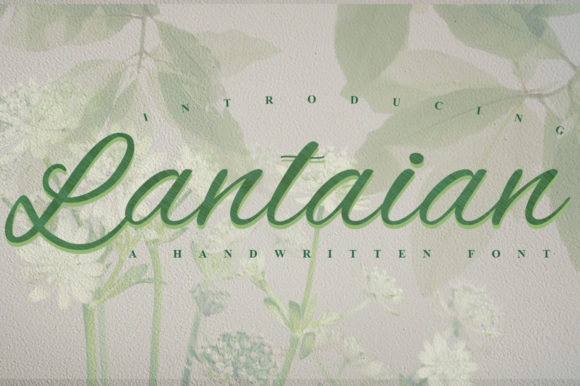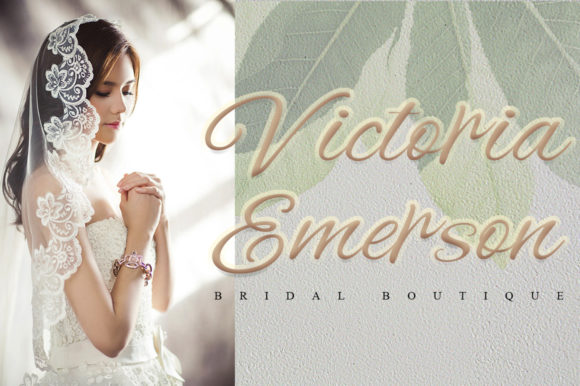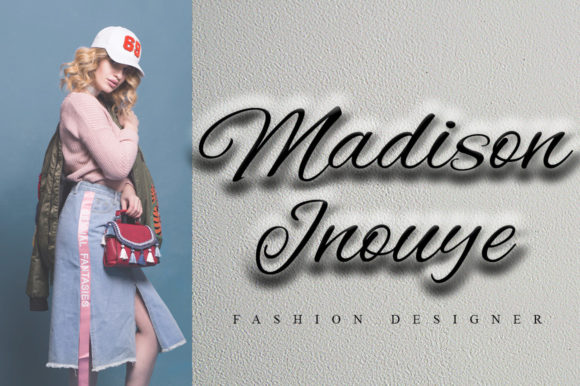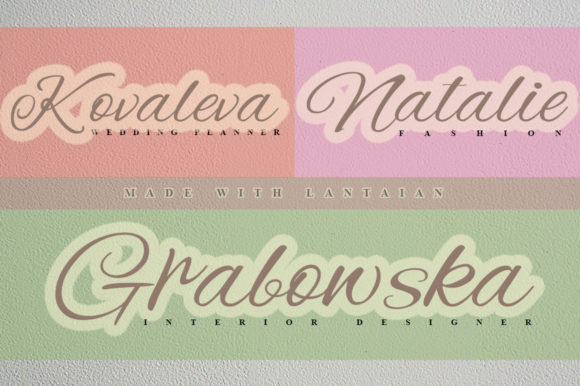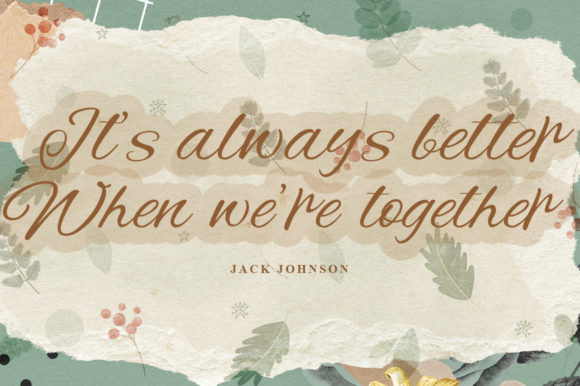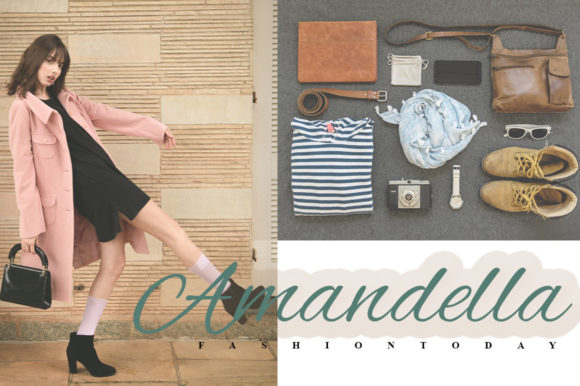
Lantaian Font
About Lantaian Font
Lantaian is a well-balanced script font. It looks amazing on wedding invitations, thank you cards, quotes, greeting cards, logos, business cards, business promotions, advertisements, posters and various other creations.